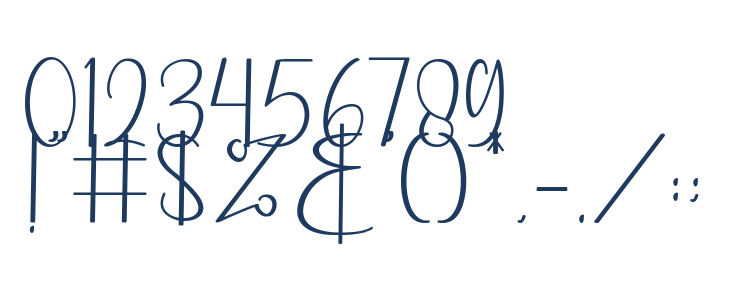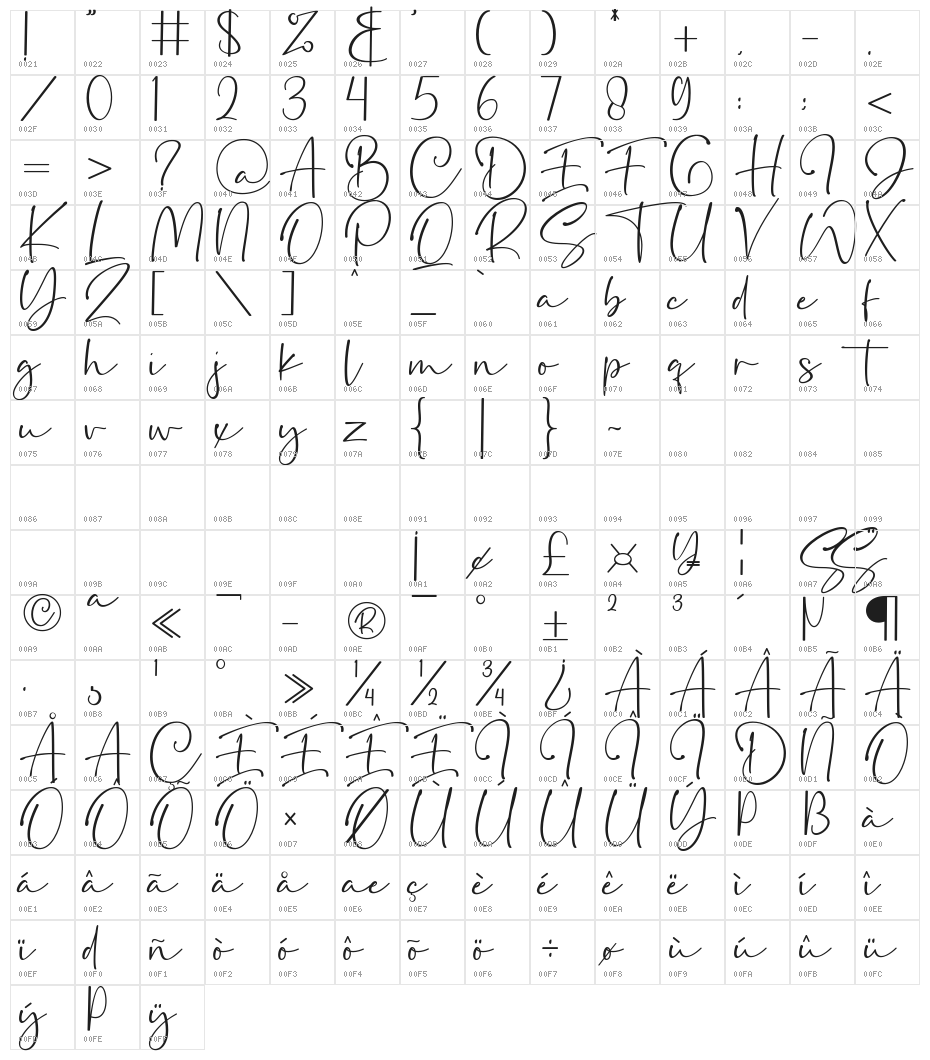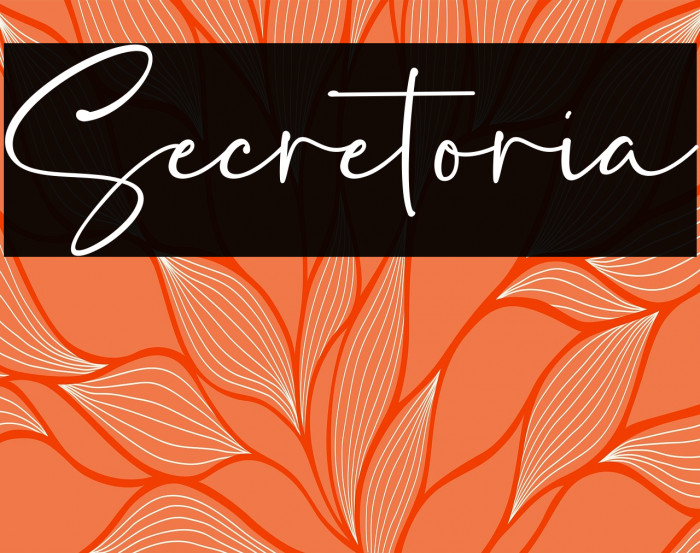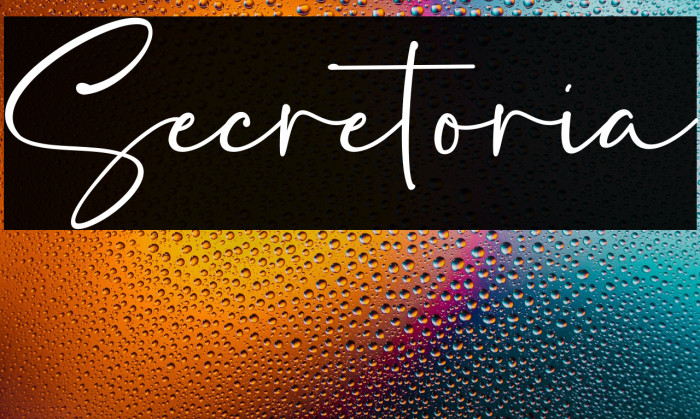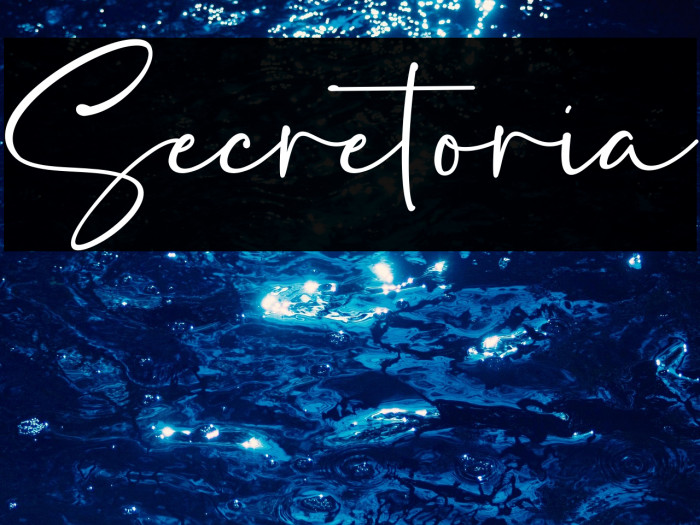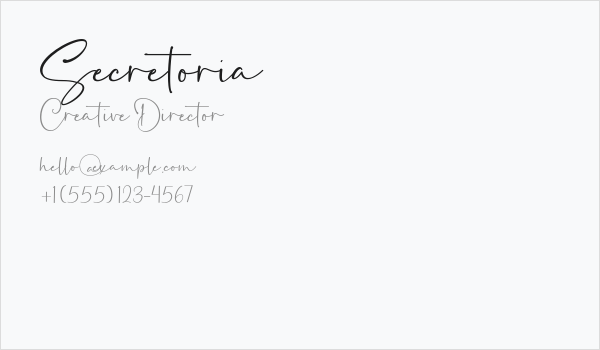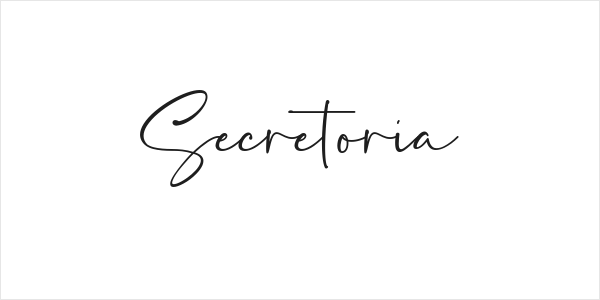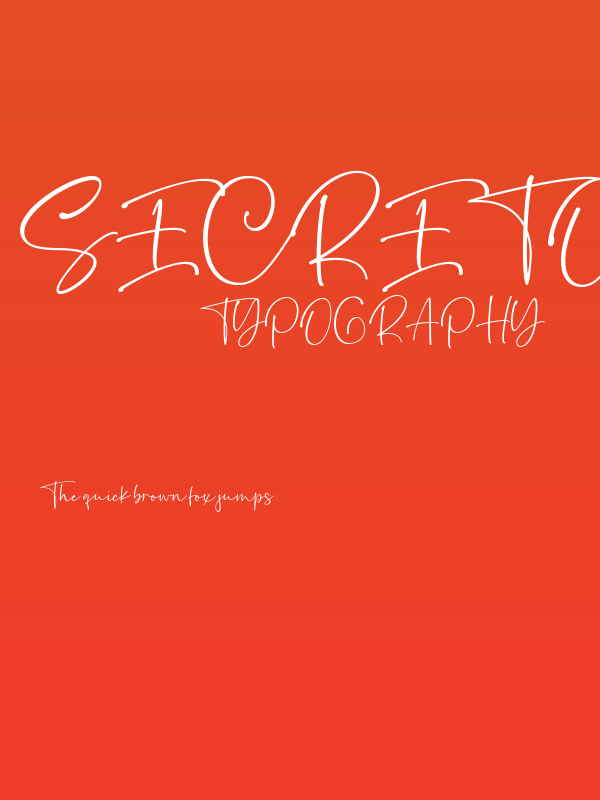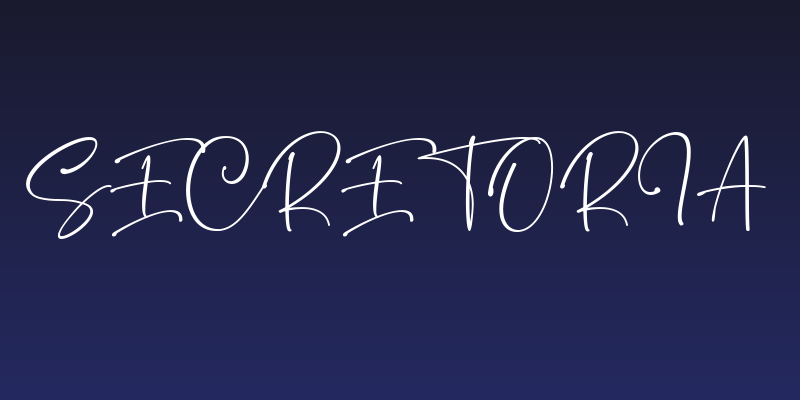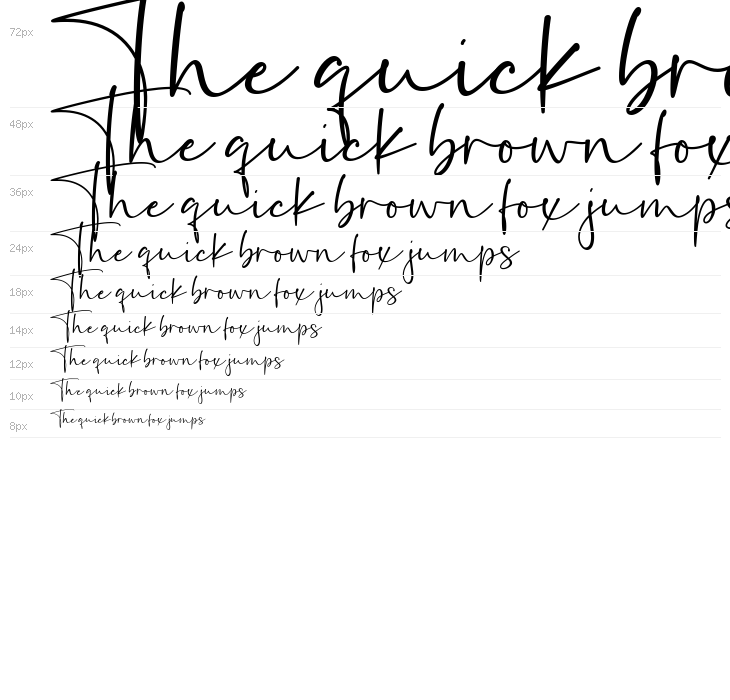
Secretoria Font
Secretoria Description
This font features a lively and flowing script style, characterized by its elegant and fluid strokes. The uppercase letters exhibit a graceful looped design, while the lowercase letters maintain a consistent cursive flow, enhancing readability. The numerals are distinct and slightly elongated, adding a touch of sophistication. Special characters are creatively integrated, maintaining the overall aesthetic. The font's playful yet refined appearance makes it suitable for a variety of creative applications.